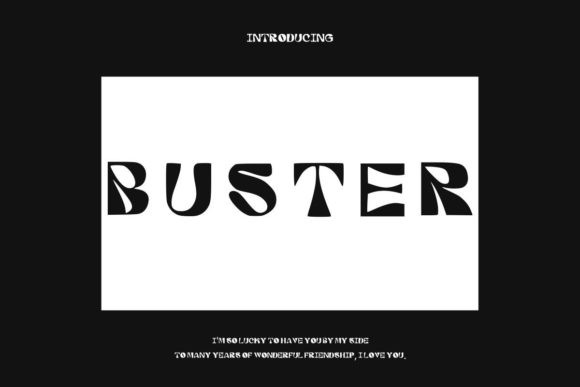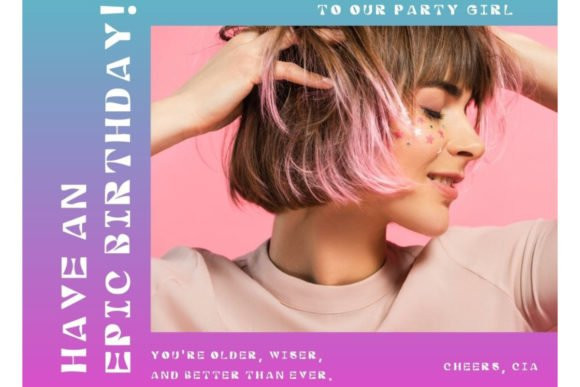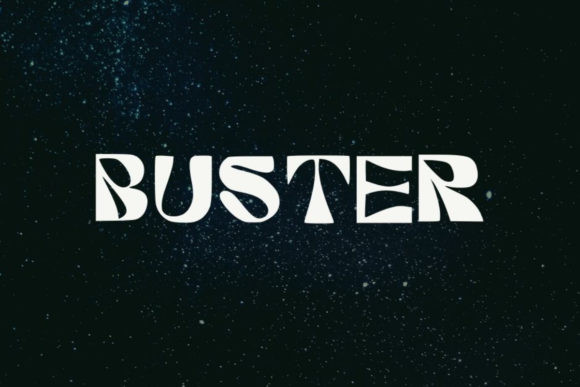
Buster Font
BusterBuster Vintage is a cool, modern and trendy display font. This font is ideal for writing web designs, business cards, or pretty much anything else that requires a stylish and bold touch.
Buster